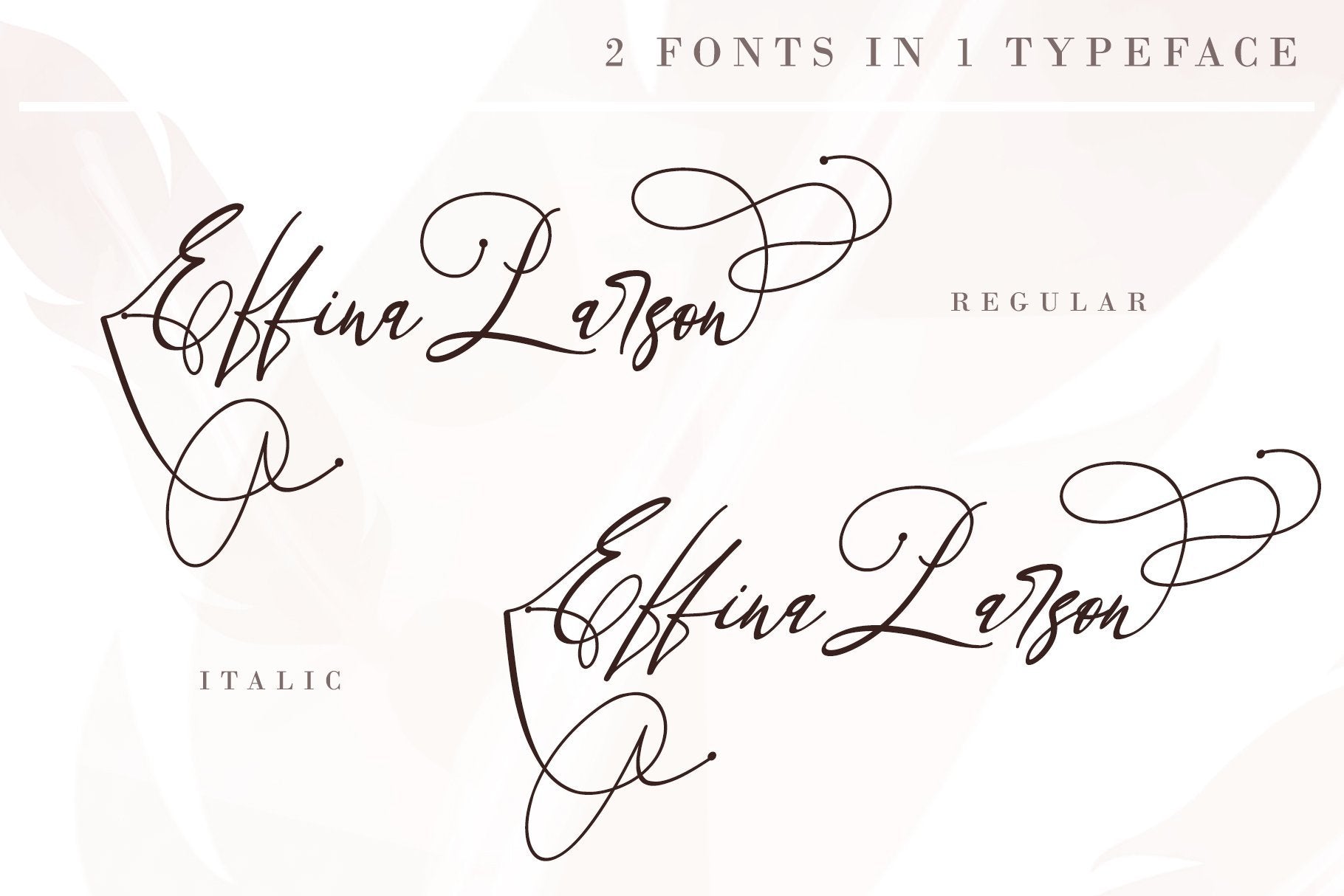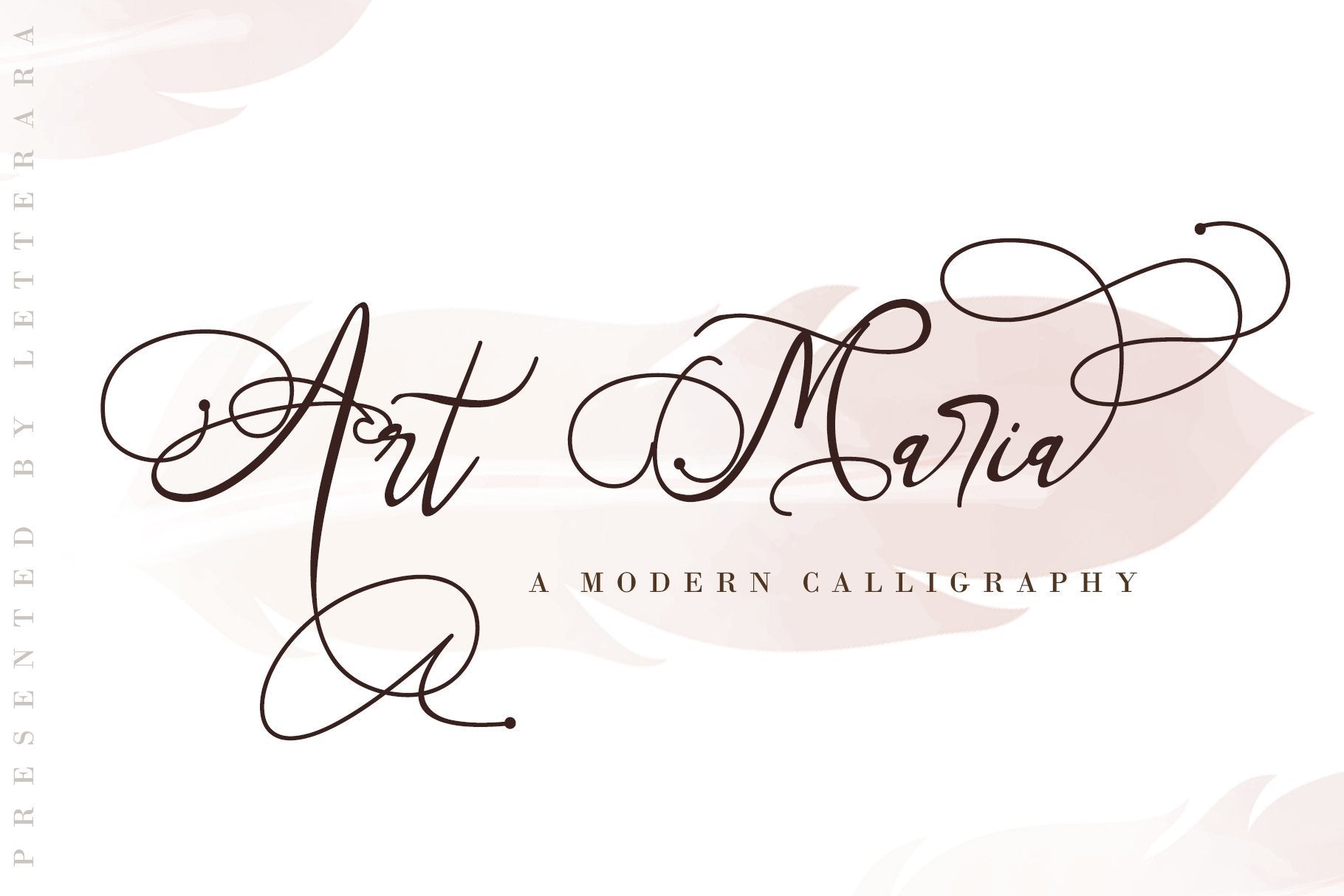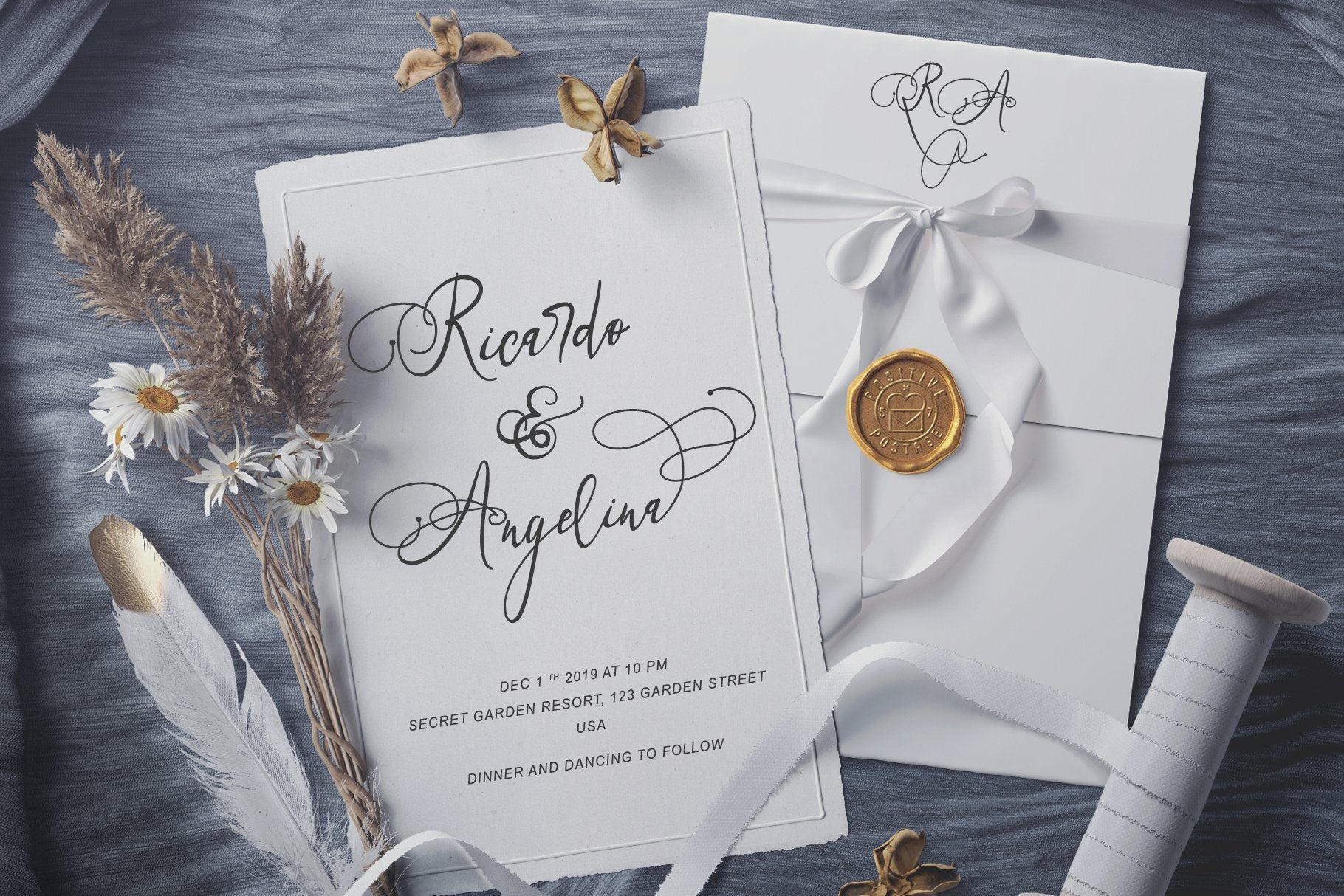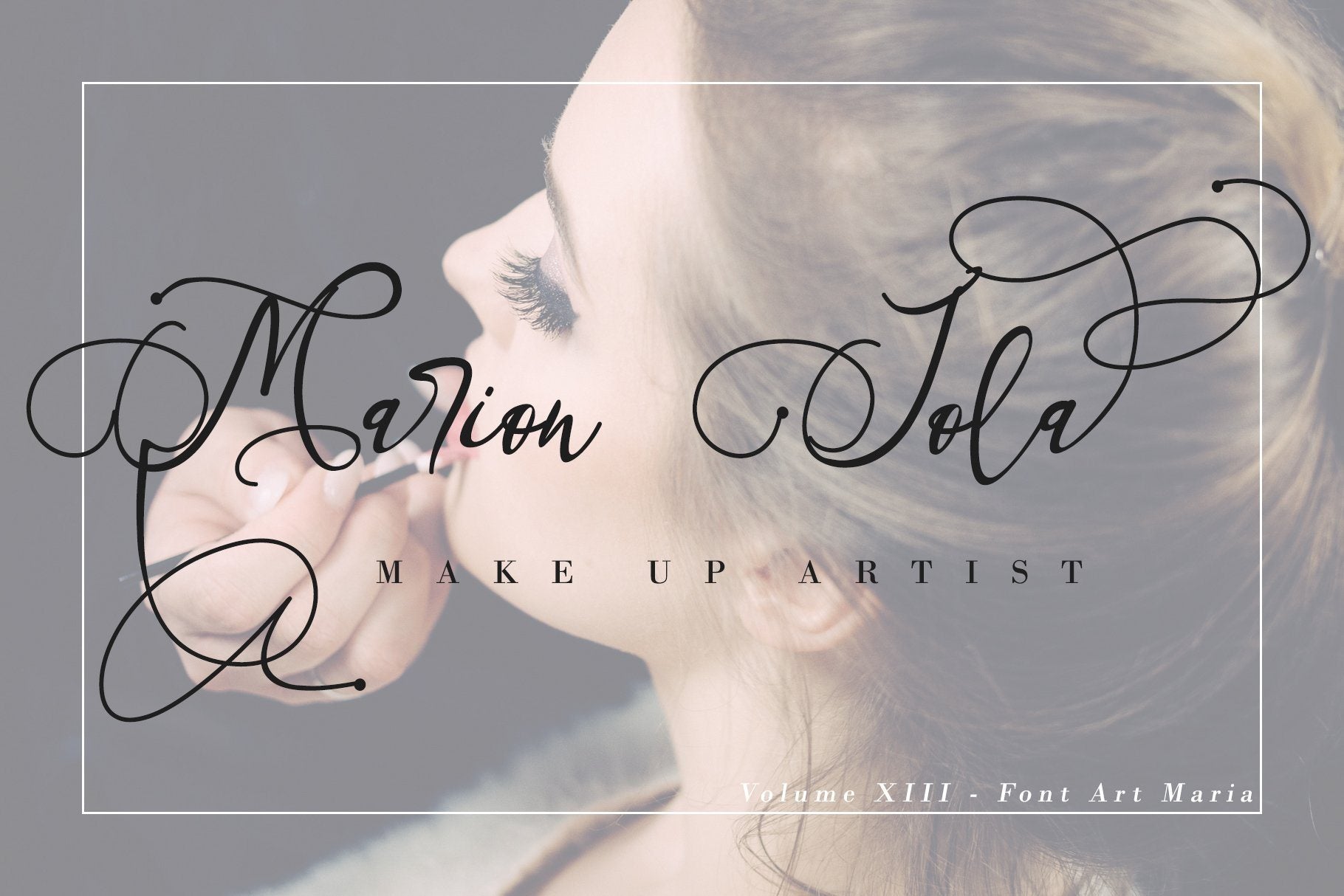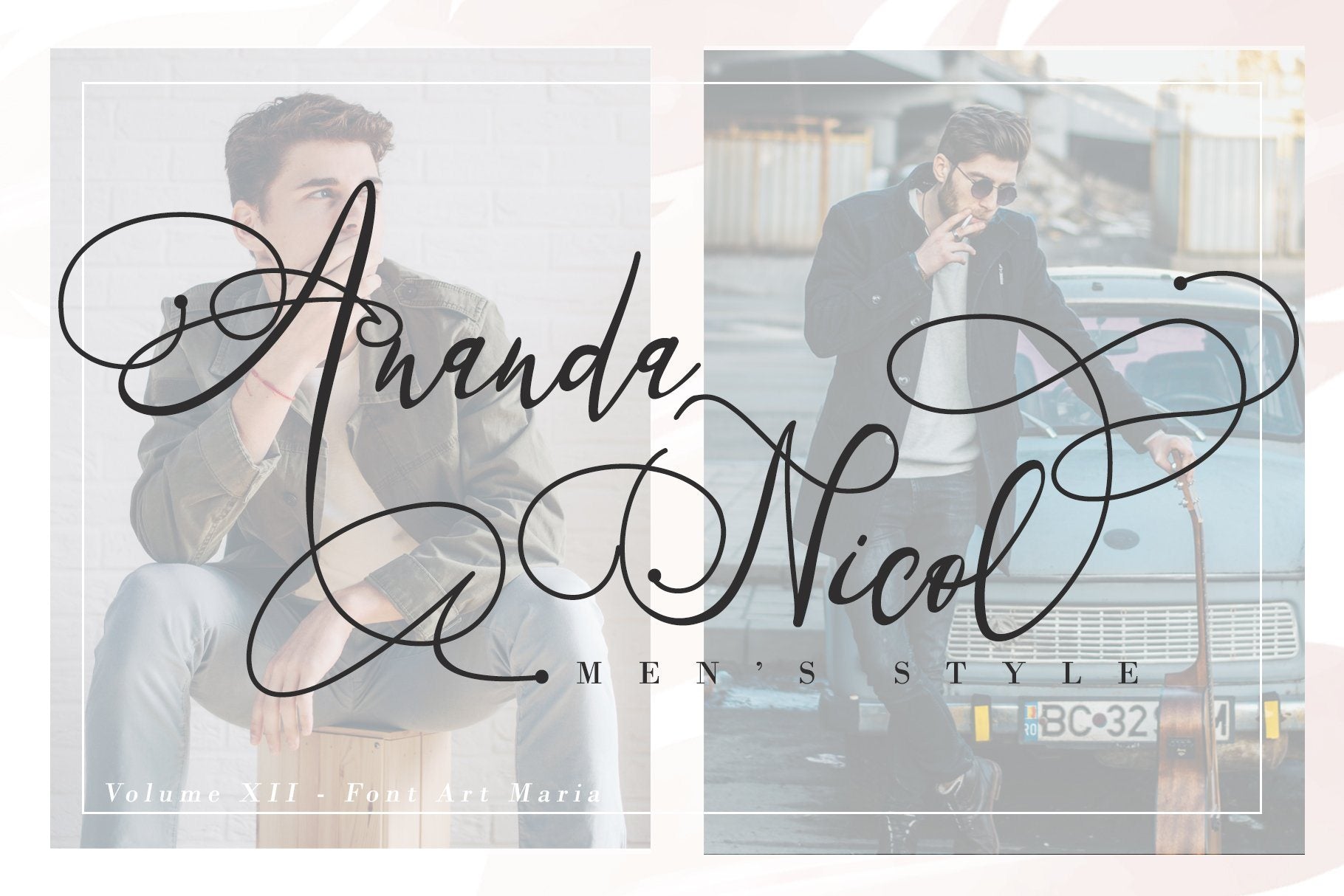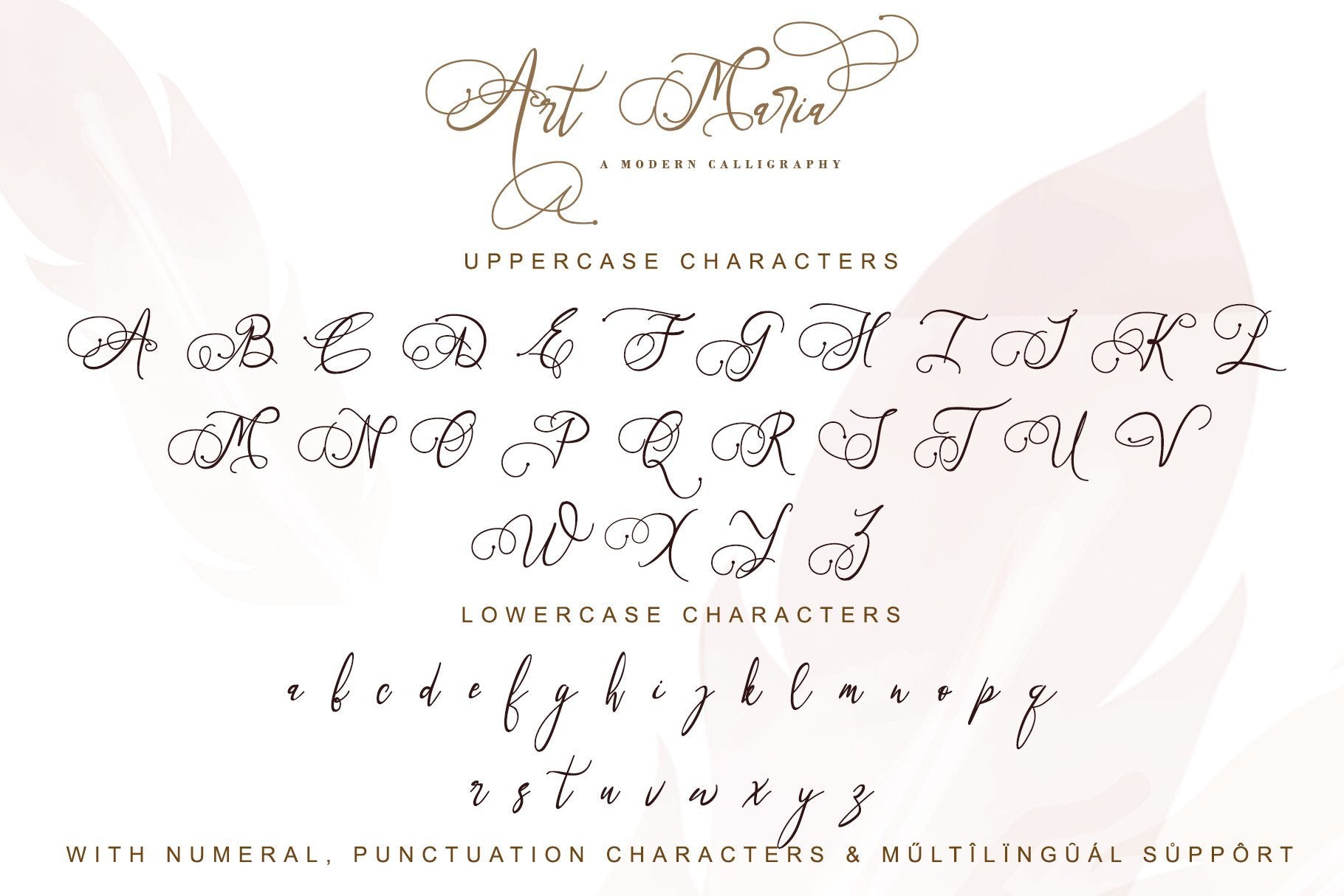
About Art Maria
Art Maria is a playful and strikingly beautiful handwritten font with a bold twist in the style of Modern Calligraphy. Art Maria have full-featured with tons of alternate characters and OpenType features. It will add a sophisticated charm to any design project! Art Maria handletter is particularly well perfect to invitations, branding, editorial design, elegant logos, upscale packaging, wedding stationery, posters, quotes, short text, branding, web, graphic design, and any other projects requiring a handwritten and luxurious touch. The OpenType features can be very easily accessed by using OpenType-savvy programs such as Adobe Illustrator and Adobe InDesign. Our other products : BEST SELLER BLACK PINK SIGNATURE ANDORA BRIGITTA SANTERIA HEANFFE GALGADOT EIFFEL IN LOVE ( FONT TRIO) SUMMER CHERRY BLACK PINK SUMMER ALLELUYA HONG KONG ANGEL MALEFICENT California Street